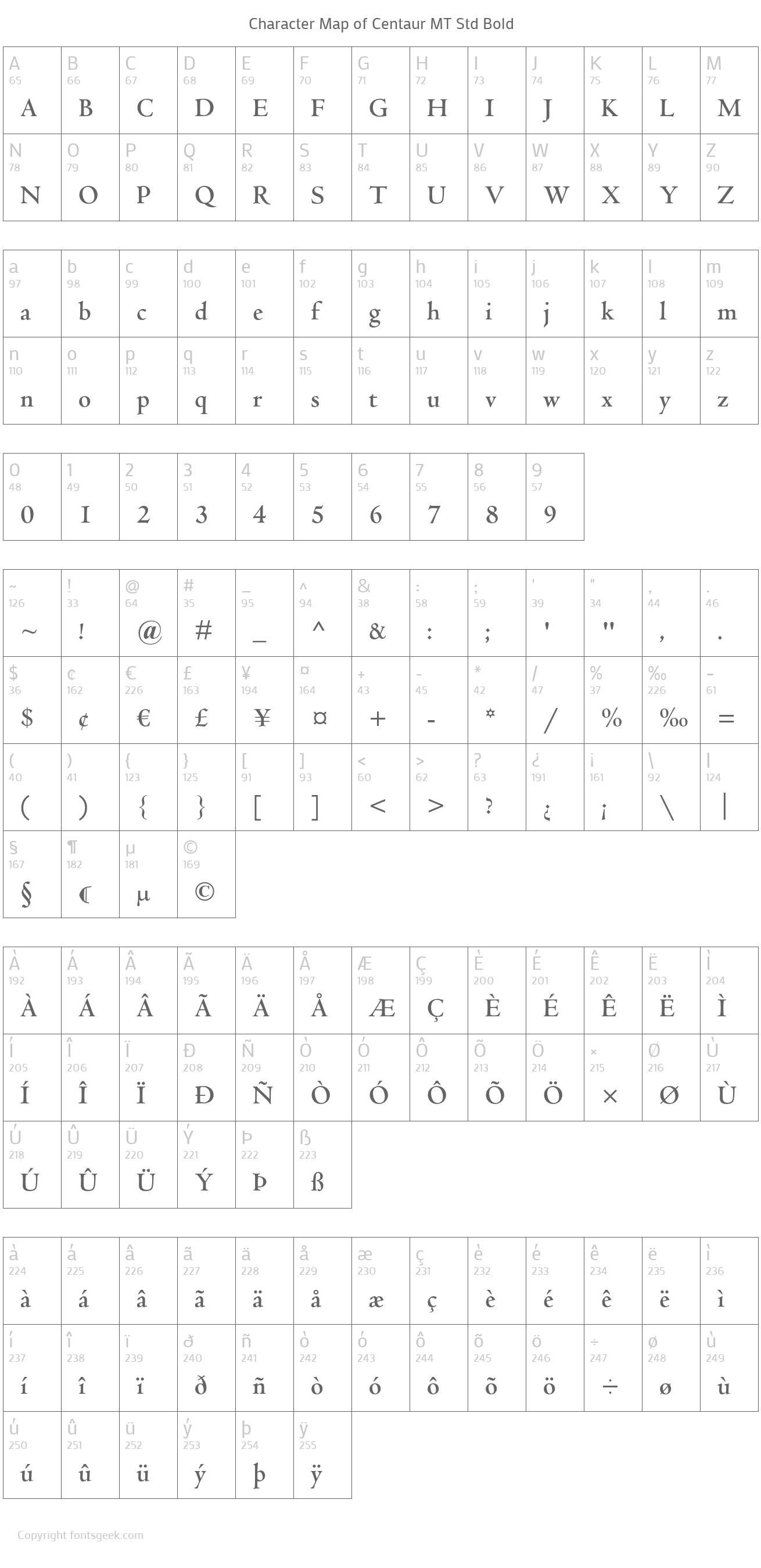
You can use the centaur mt bold to create interesting designs, covers, shop and store name and logos. Centaur mt bold italic font info. Centaur mt bold 001.001 font (font family name: